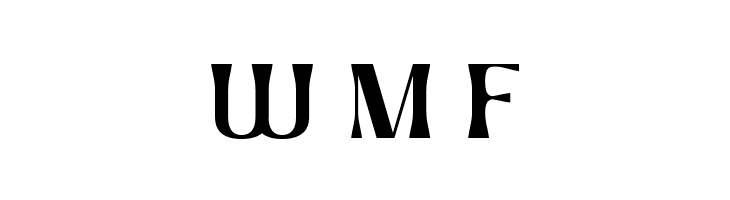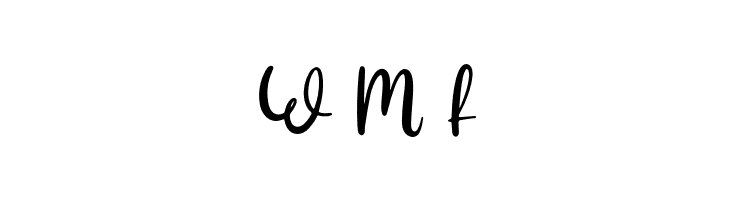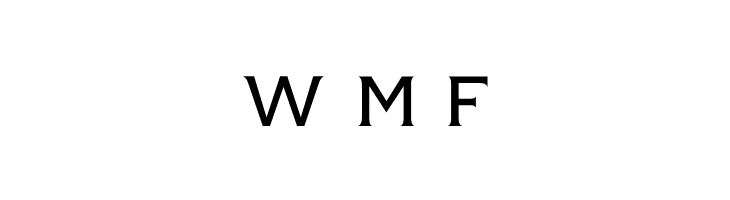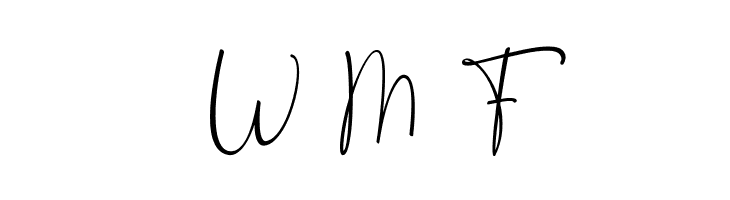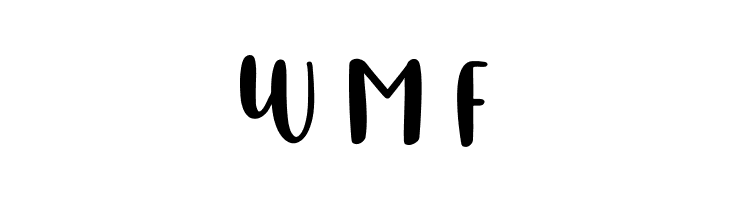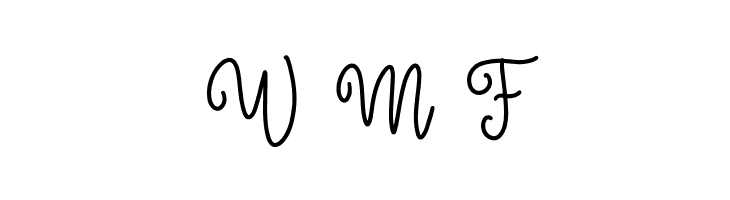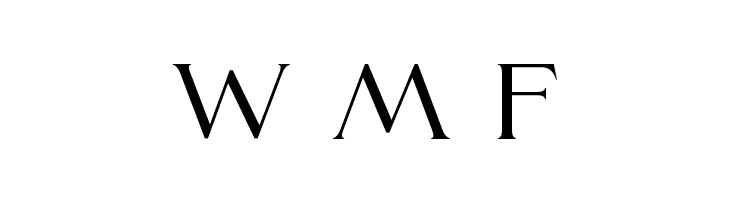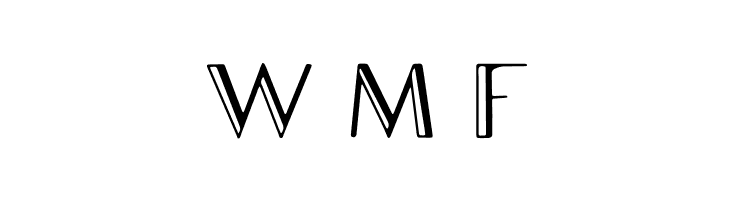
A modern, elegant font with geometric and clean lines.
A bold, modern sans-serif font with clean lines and a slightly condensed style.
A bold, dynamic font with strong, condensed strokes and a modern yet classic style.
A playful and flowing script font with elegant curves and a warm, friendly style.
A bold slab serif font with strong, block-like serifs and a balanced structure.
A playful and elegant handwritten font with fluid strokes.
A bold, playful handwritten font with thick strokes and rounded edges.
A festive and elegant script font with a flowing, handwritten style.
A refined serif font with high contrast and elegant serifs, exuding sophistication.
A decorative font with a blend of modern and vintage styles, featuring bold contrasts and artistic flair.